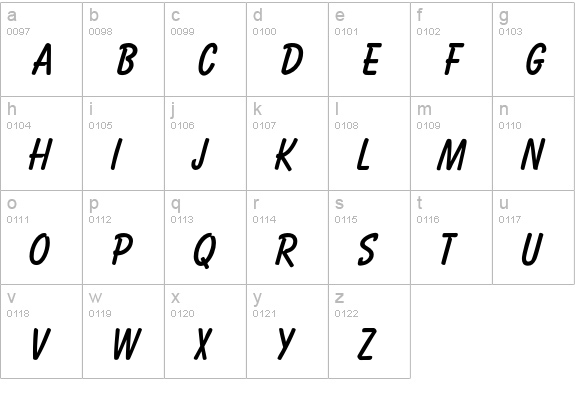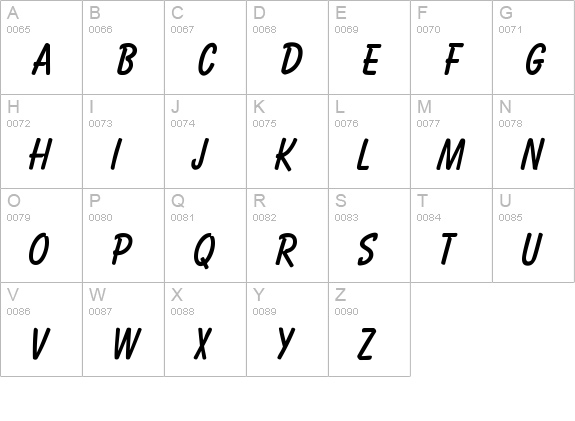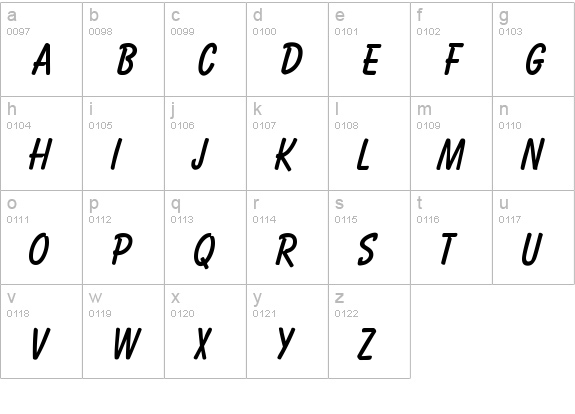
BalloonBold Font Details
BalloonBold font is a whimsical and playful typeface that is sure to make your designs stand out. With its bold and rounded letterforms, this font exudes a sense of fun and creativity. Perfect for adding a touch of joy to invitations, posters, and social media graphics, BalloonBold is a versatile choice for any project that needs a pop of personality. And the best part? BalloonBold font is completely free to download at FontsMarket.com! Embrace the lighthearted charm of this font without breaking the bank. Whether you're a designer looking to add a unique flair to your work or someone who simply loves experimenting with different fonts, BalloonBold is a fantastic addition to your collection. Download it today and let your creativity take flight!